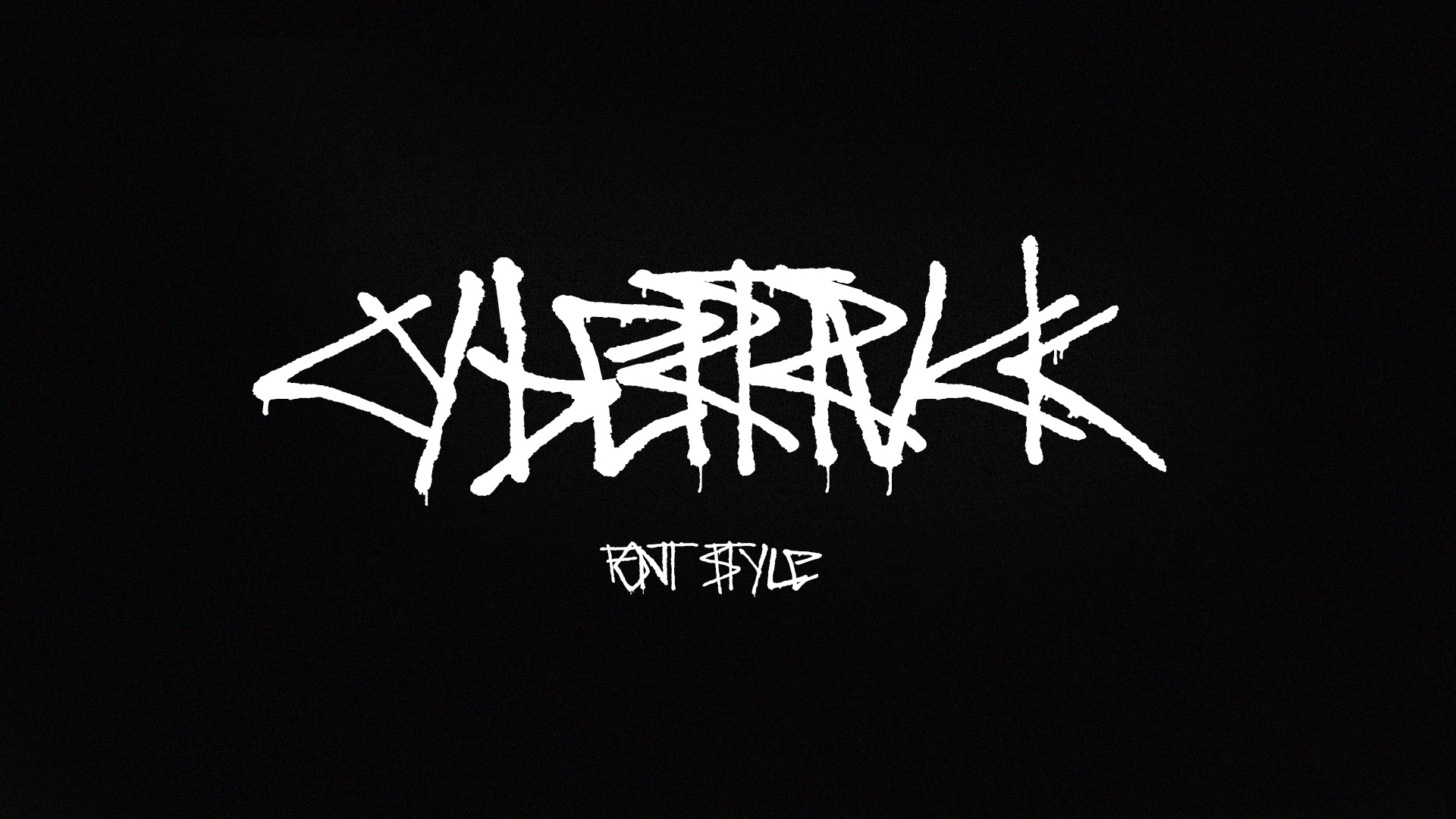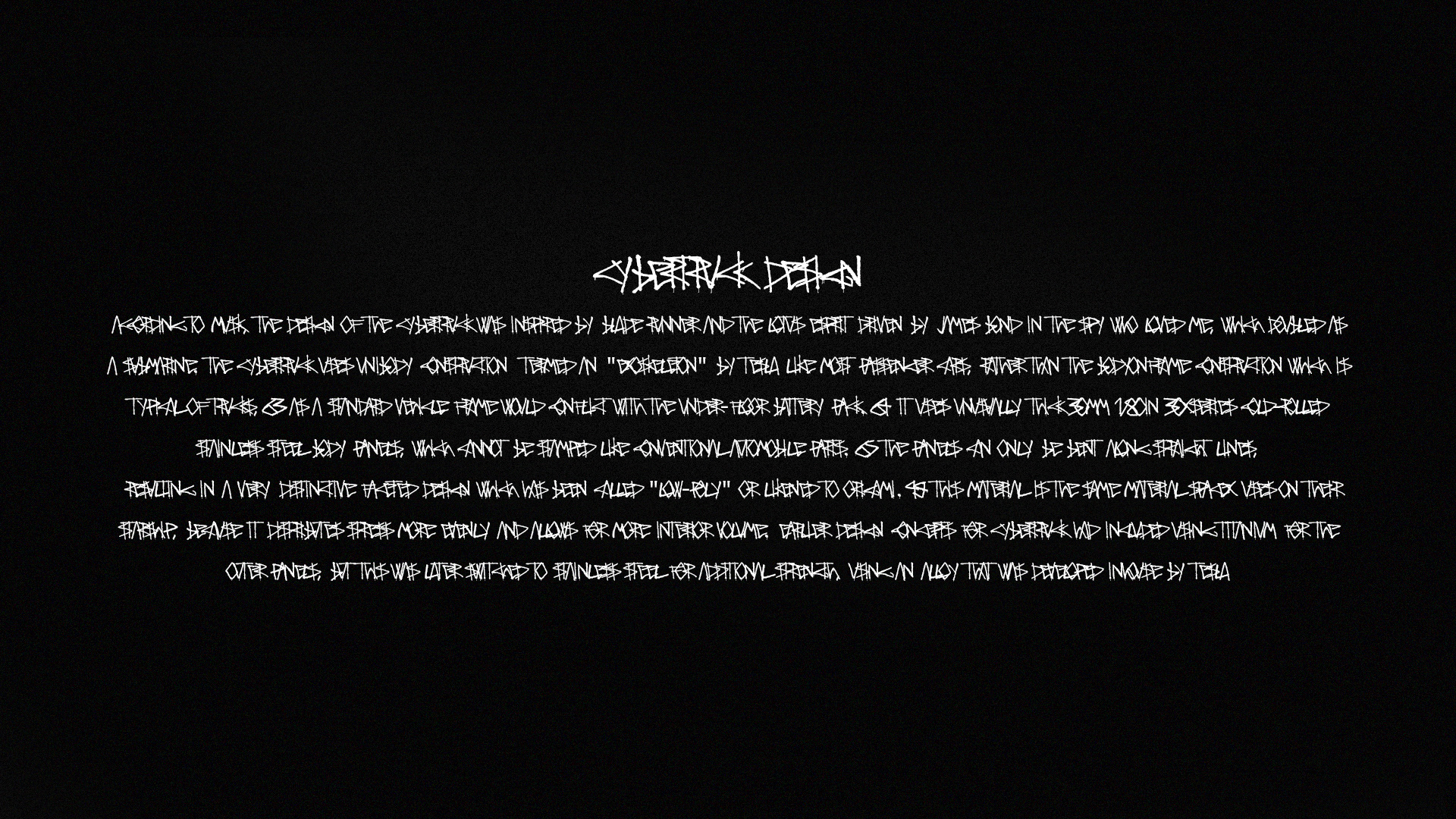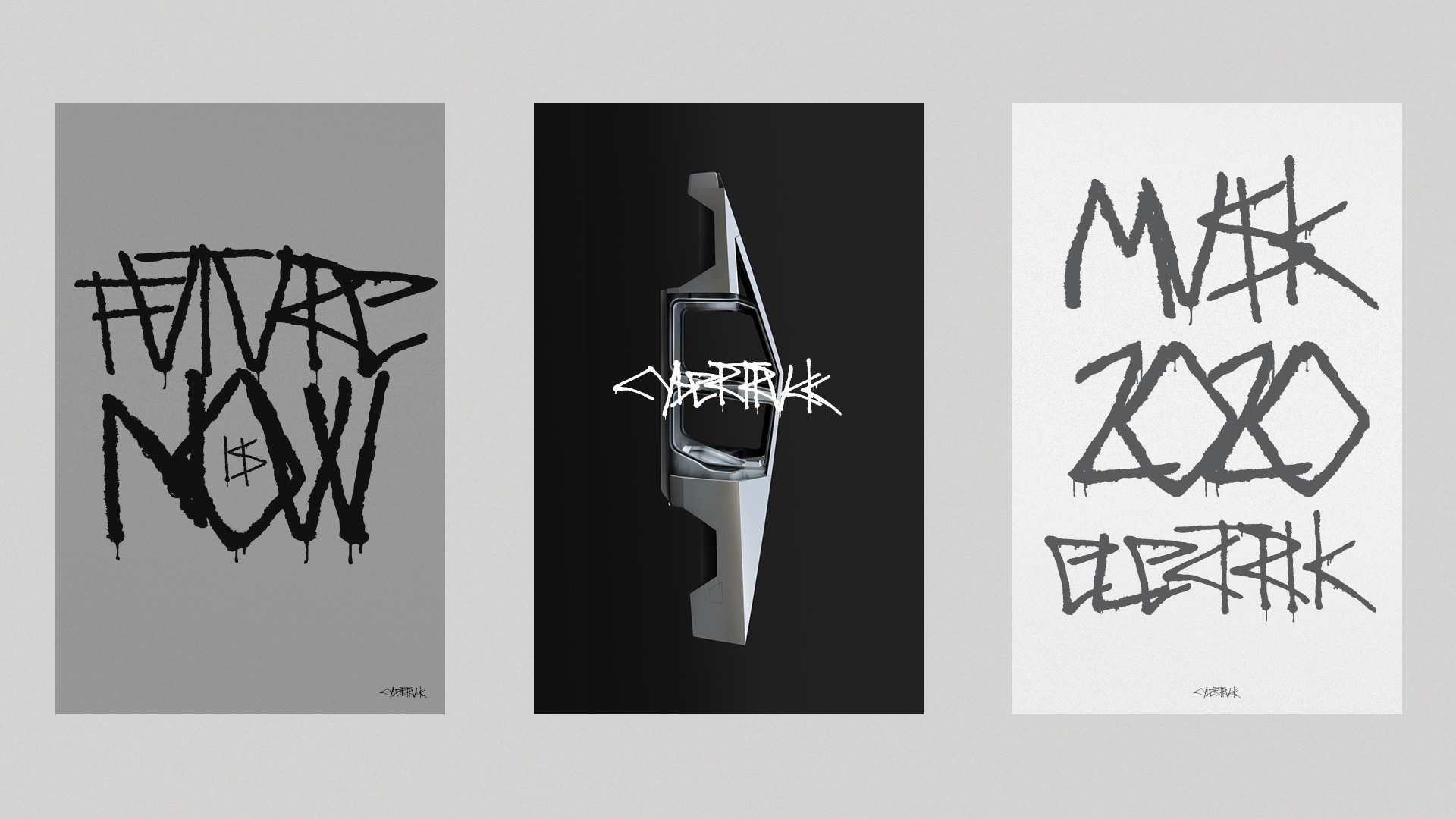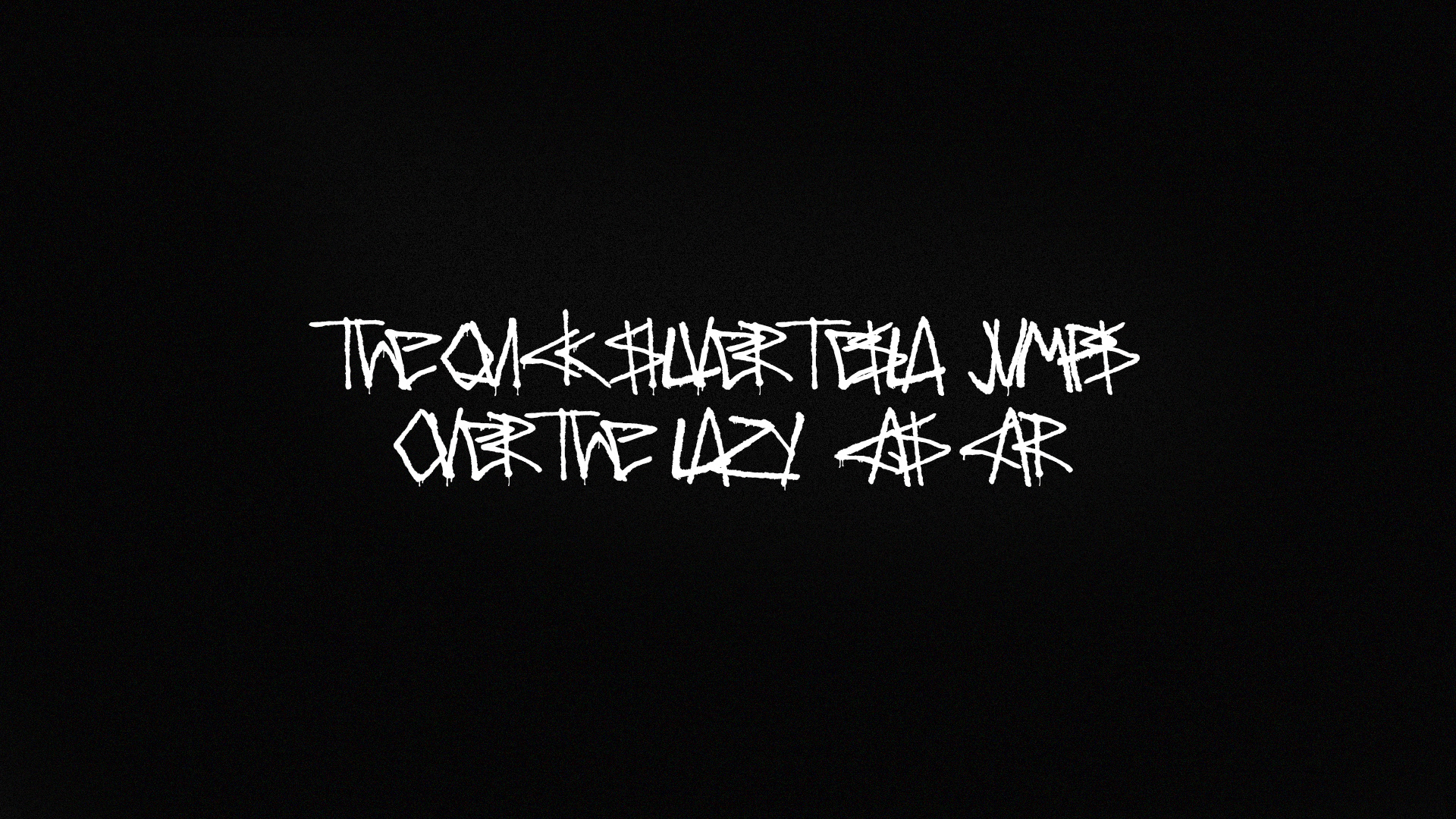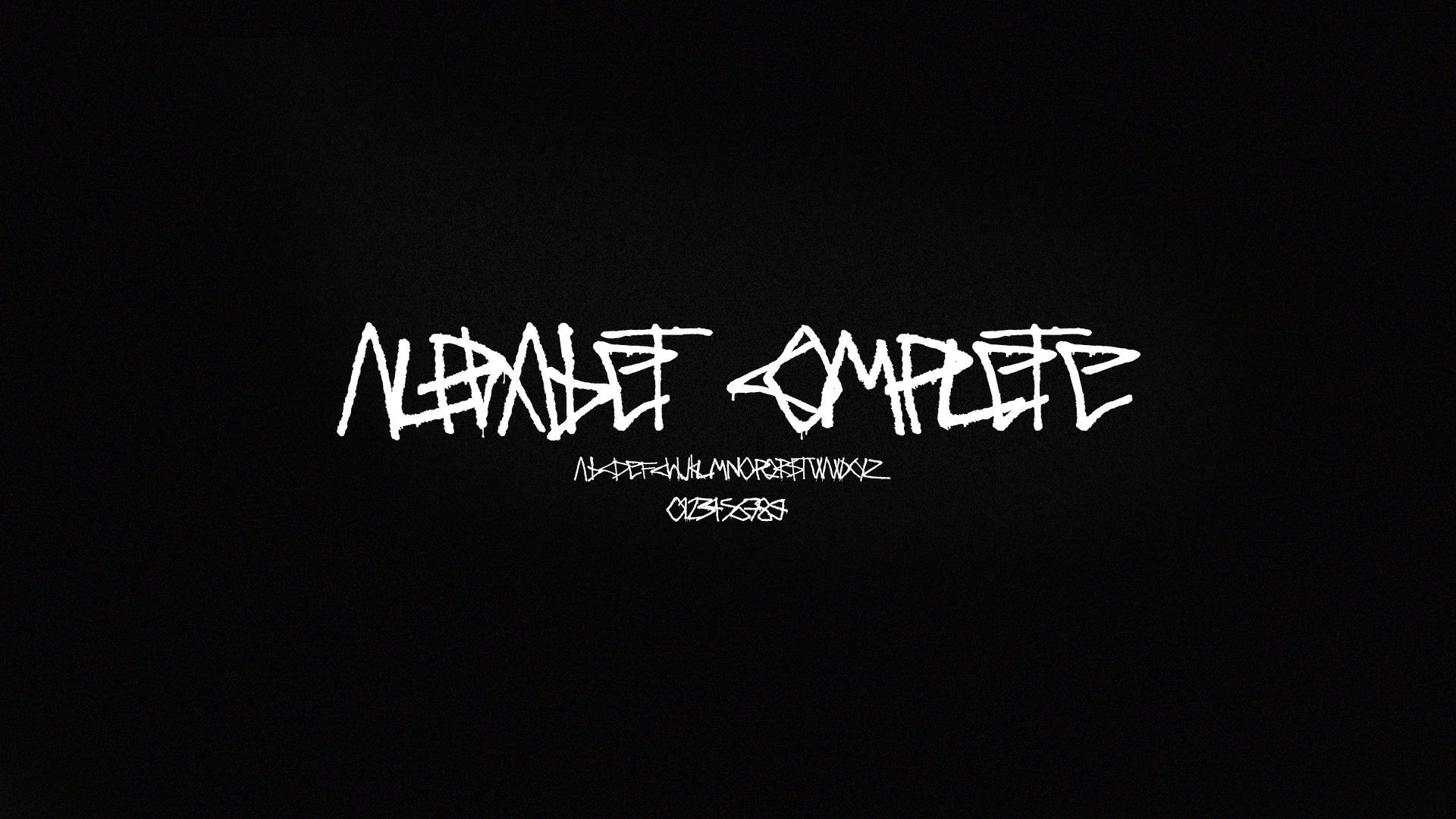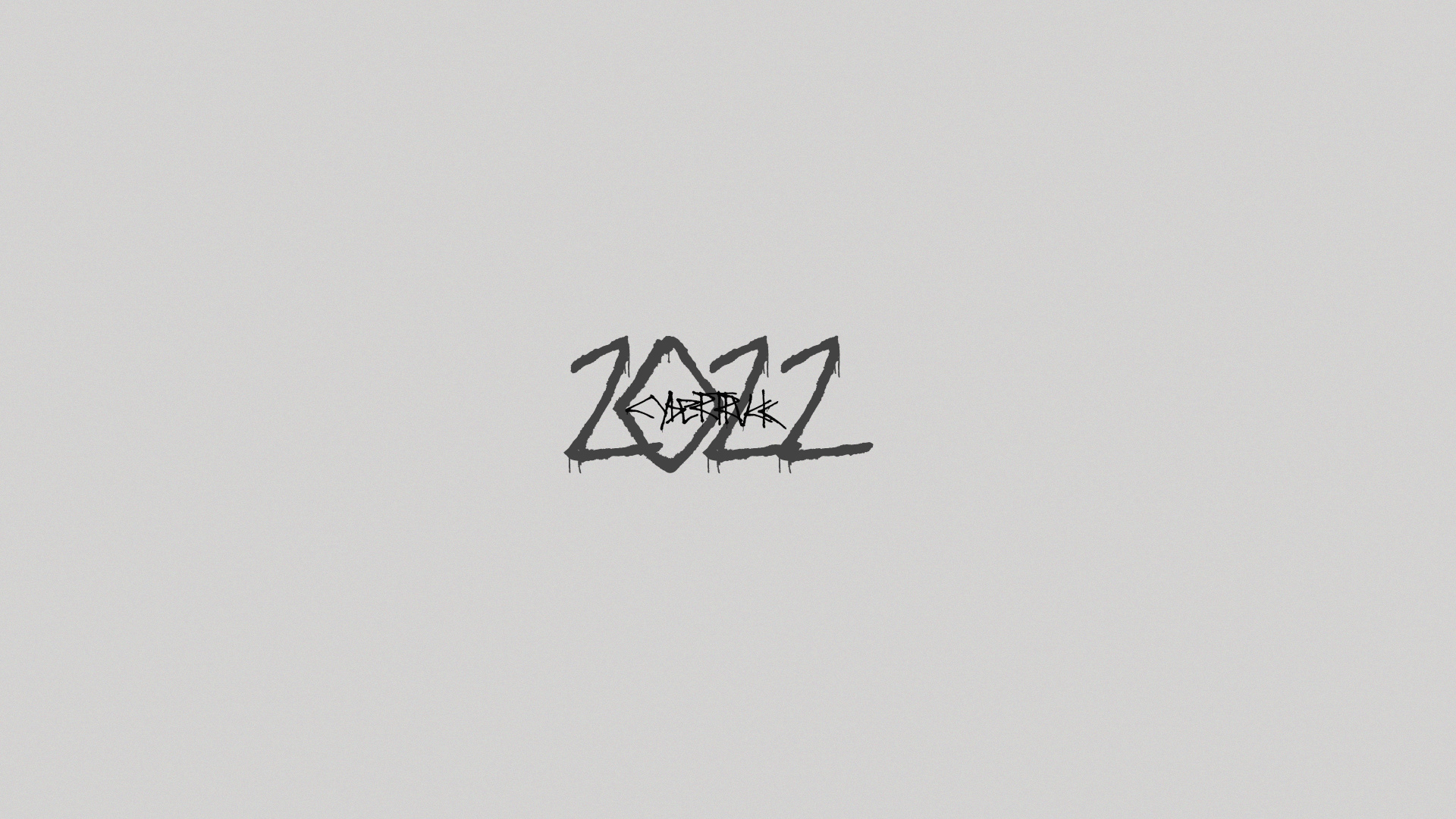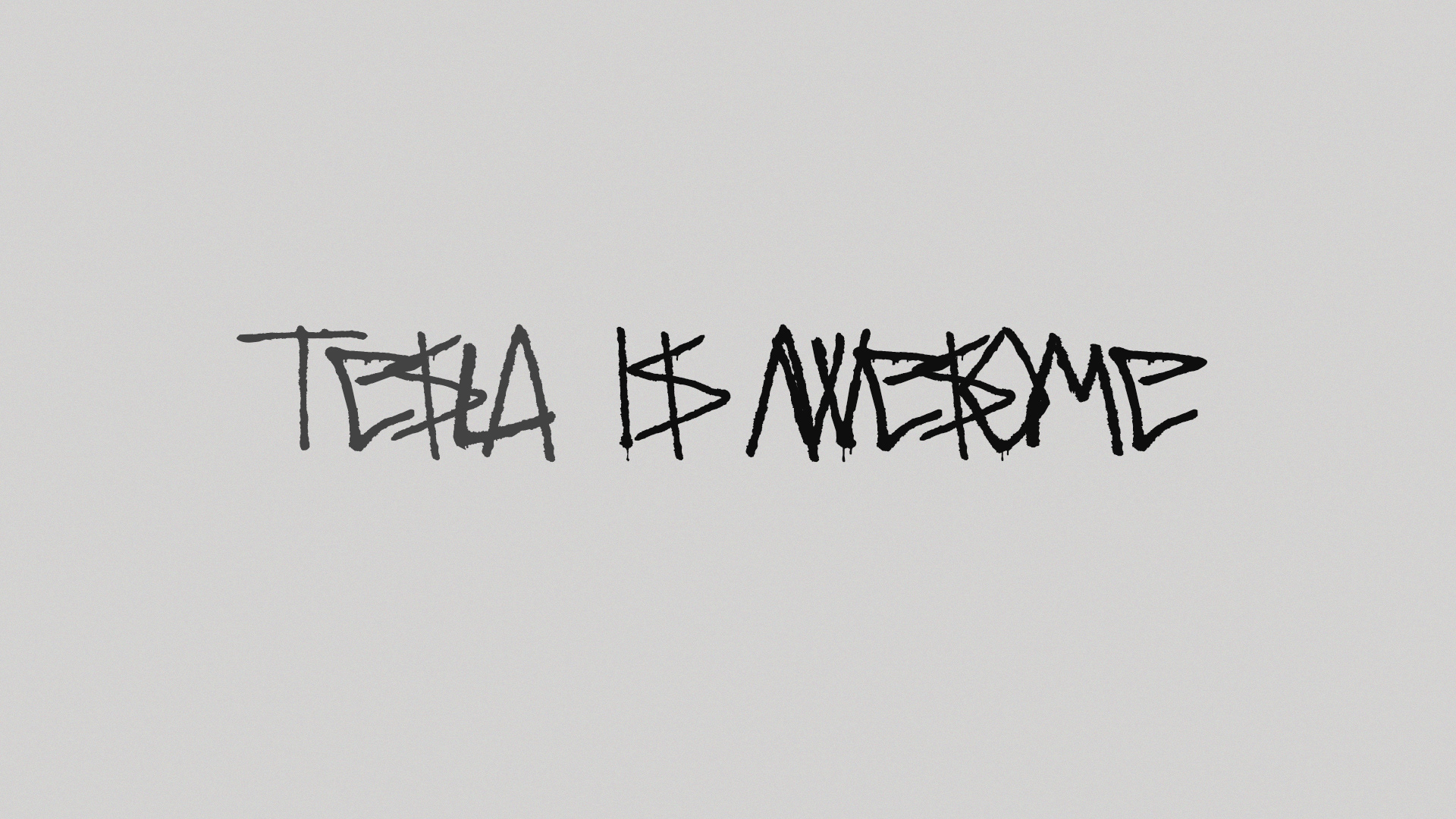
CYBERTRCK FONT
personal exploration to recreate the complete alphabet based on the logo of the cybertruck, special attention to keep the hard legibility
and futuristic graffiti feeling of the font, I work on redrawing all the existing letter and create the missing ones and numbers to complete
the CYBERTRCK FAMILY FONT 1.0